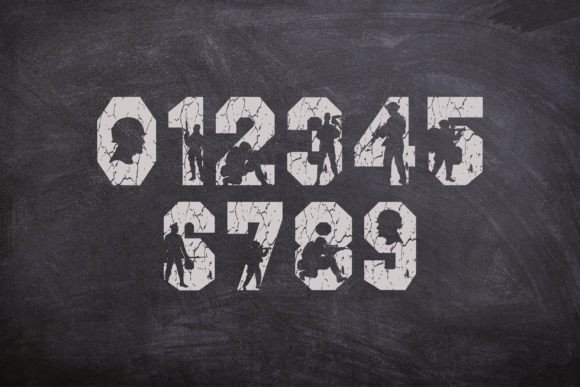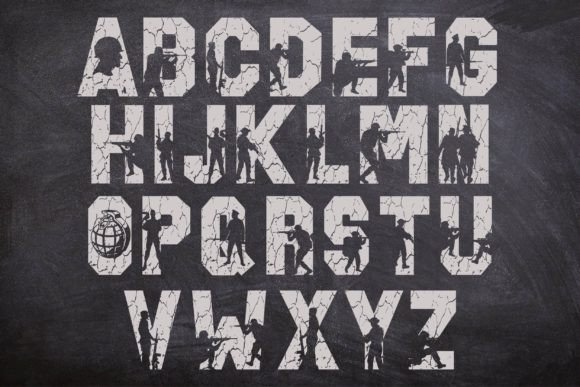
Introducing Army Font: The Ultimate Decorative Font for Creative Projects
Are you a designer, craftsperson, or creative enthusiast looking for a unique and original font to elevate your projects? Look no further than Army Font, a cool and decorative font perfect for a wide range of applications. In this article, we’ll dive into the features and benefits of Army Font, and explore how it can be used to take your logotypes, headlines, corporate identity, and more to the next level.
What is Army Font?
Army Font is a decorative font designed to make a statement. Its unique and original design makes it perfect for creative projects that require a bold and eye-catching look. With its rugged and edgy aesthetic, Army Font is ideal for designs that need to convey a sense of strength, courage, and adventure.
Key Features of Army Font
- Unique and Original Design: Army Font boasts a distinctive design that sets it apart from other fonts. Its rugged and edgy aesthetic makes it perfect for designs that require a bold and eye-catching look.
- Versatile: Army Font is suitable for a wide range of applications, including logotypes, headlines, corporate identity, brand identity, apparel industry, posters, music, movies, games, magazines, books, comics, cartoons, YouTube, Instagram, websites, and more.
Use Cases for Army Font
Army Font is an incredibly versatile font that can be used in a variety of creative projects. Here are some examples of how you can use Army Font:
- Logotypes and Branding: Use Army Font to create a bold and memorable logo for your brand. Its unique design makes it perfect for companies that want to stand out from the competition.
- Headlines and Posters: Army Font is perfect for creating eye-catching headlines and posters. Its rugged and edgy aesthetic makes it ideal for designs that require a bold and attention-grabbing look.
- Apparel Industry: Use Army Font to create bold and stylish designs for t-shirts, hoodies, and other apparel items.
- Music and Movies: Army Font is perfect for music and movie posters, flyers, and other promotional materials.
- Games and Comics: Use Army Font to create bold and eye-catching designs for games, comics, and cartoons.
Benefits of Using Army Font
Army Font offers a range of benefits for designers and crafters. Here are some of the advantages of using Army Font:
- Stand Out from the Competition: Army Font’s unique design makes it perfect for designs that require a bold and eye-catching look. By using Army Font, you can create designs that stand out from the competition.
- Enhance Your Brand Identity: Army Font can help you create a bold and memorable brand identity that resonates with your target audience.
Tips for Using Army Font
Here are some tips for using Army Font effectively:
- Use it Boldly: Army Font is designed to make a statement, so don’t be afraid to use it boldly. Experiment with different font sizes and styles to create a dramatic effect.
- Pair it with Other Fonts: Army Font can be paired with other fonts to create a unique and interesting design. Experiment with different font combinations to find the perfect look for your project.
- Experiment with Colors: Army Font looks great in a range of colors. Experiment with different colors and gradients to find the perfect look for your design.
Army Font is a cool and original-looking decorative font perfect for a wide range of creative projects. Its unique design, versatility, and ease of use make it an ideal choice for designers and crafters. Whether you’re looking to create a bold and memorable logo, eye-catching headlines, or stylish apparel designs, Army Font is the perfect choice. So why wait? Download Army Font today and take your designs to the next level!